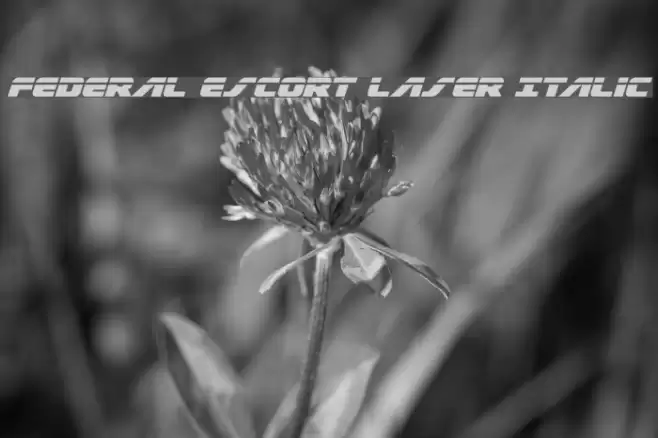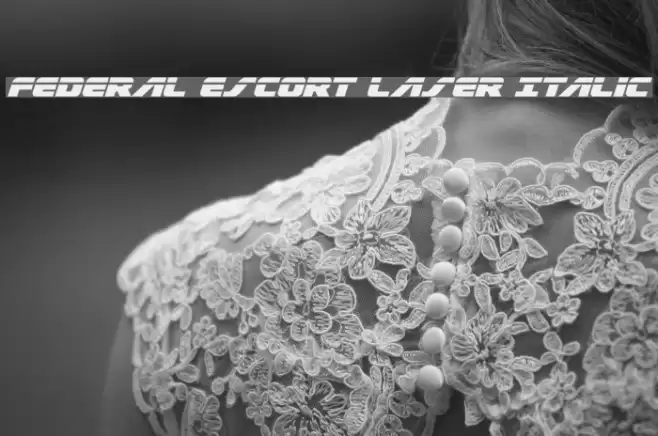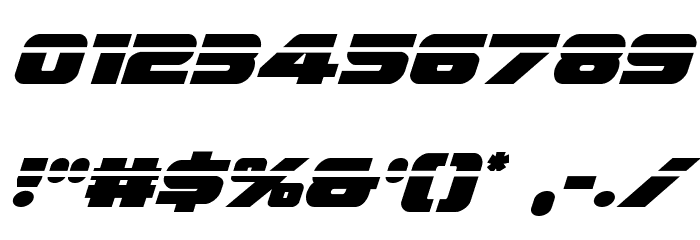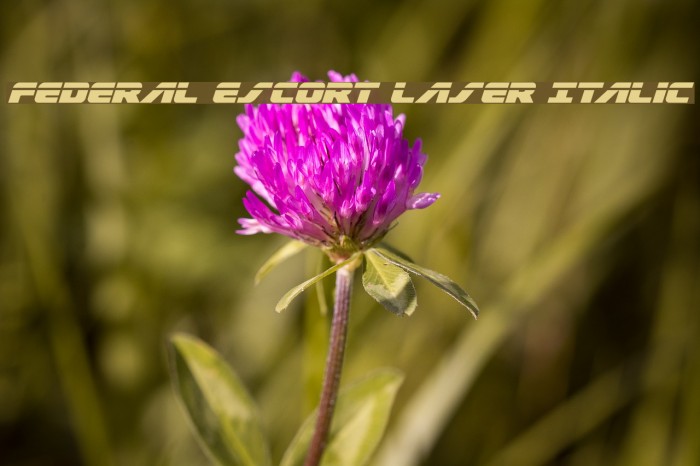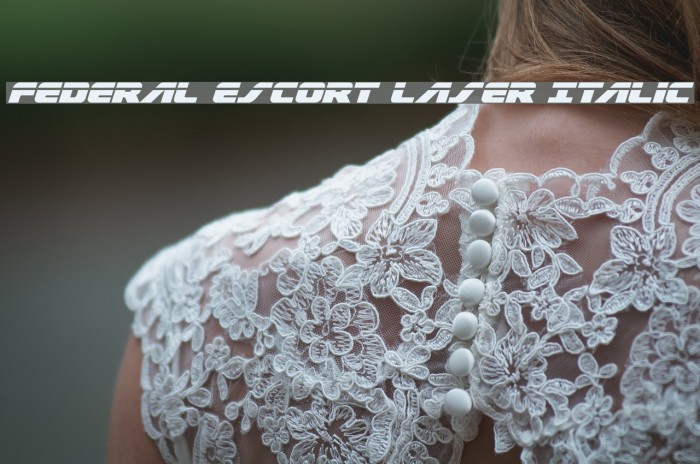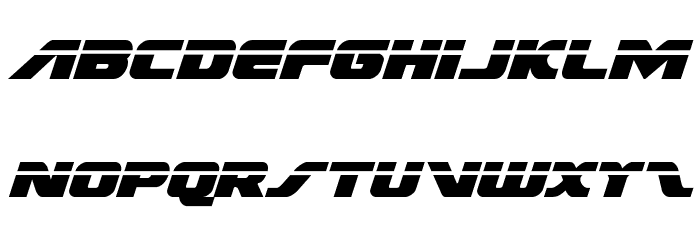
Federal Escort Laser Italic Font
Federal Escort Laser Italic Description
This font features a bold, futuristic design with a strong italic slant, giving it a dynamic and forward-moving appearance. The characters are constructed with sharp angles and geometric shapes, creating a sense of speed and modernity. The uppercase and lowercase letters maintain a consistent style, with the lowercase slightly smaller but equally bold. Numbers and special characters follow the same design principles, ensuring uniformity across all glyphs. The font's unique style makes it ideal for projects that require a modern, tech-inspired aesthetic.
A bold, futuristic italic font with sharp angles and a dynamic style from Uncategorized fonts.
- Proposed Projects: Ideal for technology branding, sci-fi themed designs, video game titles, and modern advertising.